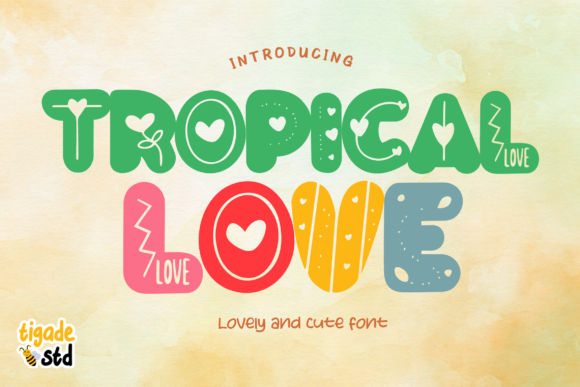
Dive into the world of Tropical Love, a font family that exudes cuteness, quirkiness, and friendliness like no other. Each letter dances with a playful spirit, making it the perfect choice for adding a touch of joy to your creative endeavors.
Picture this: a vibrant cartoon world where characters come alive with personality, thanks to the enchanting Tropical Love font. Its playful curves and cheerful strokes bring life to children's games, making them even more engaging and immersive.
Unleash your inner child and create whimsical quotes that spark imagination and laughter. The Tropical Love font transforms ordinary words into captivating expressions, perfect for capturing the essence of joy and positivity.
Elevate your brand identity with a name that stands out. Tropical Love adds a touch of charm and personality to your logo, making it instantly recognizable and memorable. Its unique style sets your brand apart from the crowd, creating a lasting impression on your customers.
Imagine a book cover that draws readers in with its vibrant energy. The Tropical Love font captivates attention with its playful design, inviting readers to embark on an unforgettable journey. Its bold presence makes your book stand out on any bookshelf, promising an adventure that's both enchanting and heartwarming.
Posters and flyers come to life with the Tropical Love font. Its eye-catching appearance grabs attention from afar, making your message impossible to ignore. Whether you're promoting an event, a sale, or a new product, this font ensures your message is delivered with a smile.
Open up a world of endless creative possibilities with the Tropical Love font. Its versatility knows no bounds, making it the perfect choice for a wide range of projects. From invitations and greeting cards to social media posts and website designs, this font adds a touch of whimsy and charm that captivates hearts.